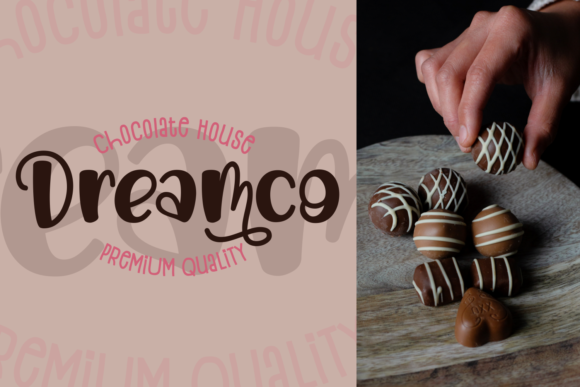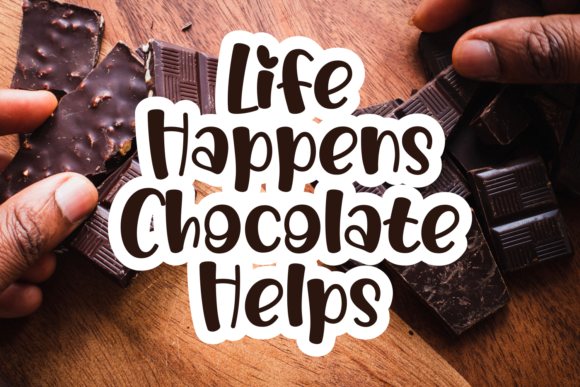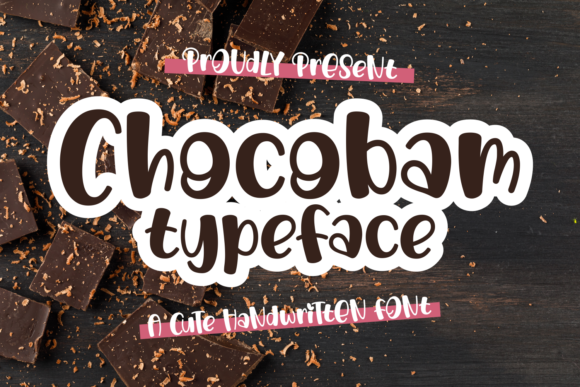
Introducing Chocobam Font: The Perfect Addition to Your Casual Designs
Are you a designer or crafter looking for a font that can add a touch of playfulness and whimsy to your projects? Look no further than Chocobam Font! This adorable display font is perfect for anyone who wants to create fun and informal designs that are sure to capture attention. In this article, we’ll take a closer look at Chocobam Font, its features, and how you can use it to elevate your designs.
What is Chocobam Font?
Chocobam Font is a cute, round, and jolly display font that’s designed to bring a smile to your face. Its trendy style makes it perfect for casual or informal designs, such as social media graphics, posters, flyers, and more. The font features a unique and quirky design that’s sure to stand out from the crowd.
Key Features of Chocobam Font
• Cute and Playful Design: Chocobam Font features a playful and adorable design that’s perfect for creating fun and engaging designs.
• Trendy Style: The font has a trendy style that’s perfect for casual or informal designs.
• Display Font: Chocobam Font is a display font, making it perfect for headlines, titles, and other attention-grabbing elements.
• Easy to Read: Despite its playful design, Chocobam Font is easy to read, making it perfect for designs that require a clear and concise message.
How to Use Chocobam Font in Your Designs
Chocobam Font is a versatile font that can be used in a variety of designs, including:
• Social Media Graphics: Use Chocobam Font to create eye-catching social media graphics that are sure to grab attention.
• Posters and Flyers: Add a touch of playfulness to your posters and flyers with Chocobam Font.
• Branding and Packaging: Use Chocobam Font to create unique and memorable branding and packaging designs.
• Crafting and DIY Projects: Chocobam Font is perfect for crafters and DIY enthusiasts who want to add a personal touch to their projects.
Tips for Using Chocobam Font Effectively
Here are some tips for using Chocobam Font effectively in your designs:
• Use it as a Headline Font: Chocobam Font is perfect for headlines and titles, so use it to grab attention and draw the reader in.
• Pair it with Other Fonts: Experiment with pairing Chocobam Font with other fonts to create a unique and visually appealing design.
• Use it in Moderation: While Chocobam Font is playful and fun, it can be overwhelming if used excessively. Use it in moderation to create a balanced design.
Font Name Chocobam Font
Author Dani (7NTypes)
Chocobam Font is a unique and playful display font that’s perfect for designers and crafters who want to add a touch of whimsy to their designs. Its trendy style and cute design make it perfect for casual or informal designs, and its ease of use makes it accessible to designers of all levels. Whether you’re creating social media graphics, posters, or crafting and DIY projects, Chocobam Font is sure to be a great addition to your design toolkit.
• What type of font is Chocobam Font? Chocobam Font is a display font.